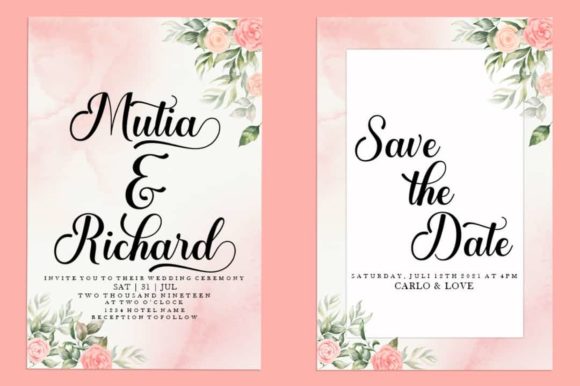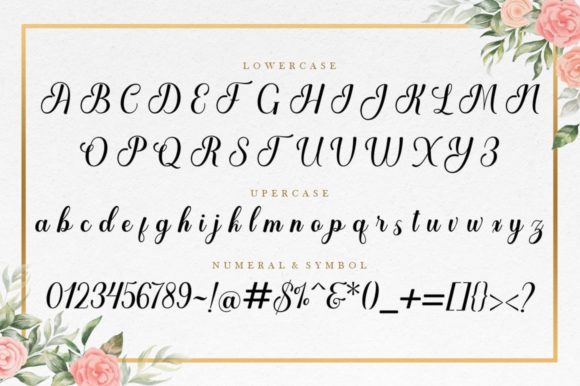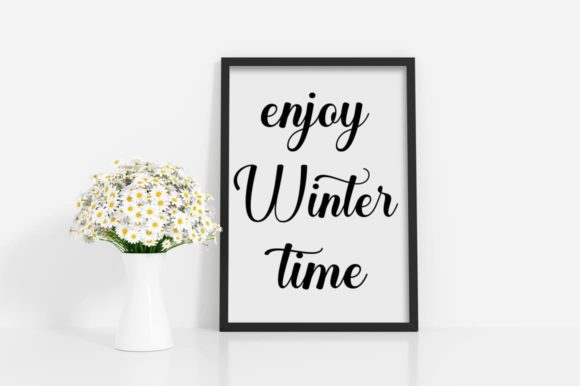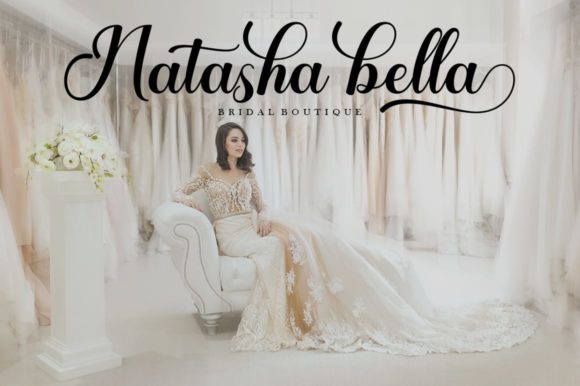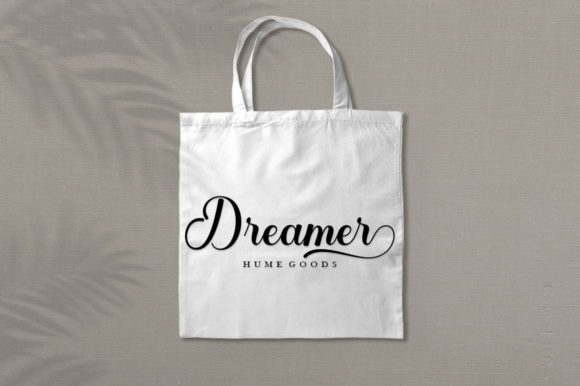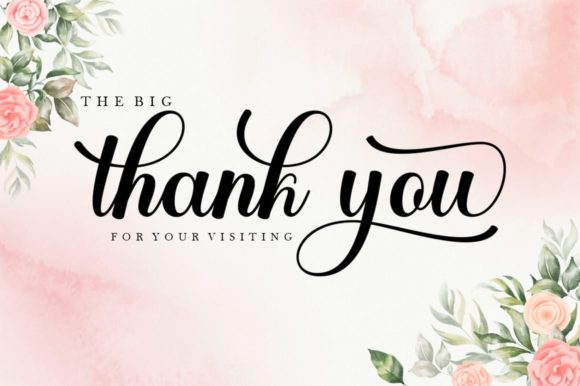
The Delania Font: A Sweet and Simple Script to Elevate Your Designs
I’ll never forget the time I was working on a wedding invitation project, and my client asked me to create a custom design that would make their special day even more unforgettable. The catch? They wanted a font that was elegant, yet playful; sophisticated, yet approachable. I scoured the internet, tried out countless fonts, but nothing seemed quite right. That was until I stumbled upon the Delania font. ✨
Delania is a sweet and simple script font with elegant swashes that instantly added a touch of magic to my design. It was love at first sight! The fluid lines, the beautiful connections, and the gorgeous swashes all came together to create a truly stunning piece. In this article, I’ll share my experience with Delania, its features, and how to make the most of this beautiful font in your designs.
An Honest Review of Delania Font
What I Love About Delania Font
- ✨ Elegant swashes that add a touch of sophistication to any design
- ✅ Beautifully crafted letters with a smooth, flowing connection
- ✅ Highly versatile and suitable for a wide range of design projects
- ✅ Easy to read and understand, even in smaller sizes
While Delania is an amazing font, there are a few things to keep in mind: 🤔
- ⚠️ Some swashes may not work well in smaller font sizes, so be sure to test them out
- ⚠️ Limited availability of certain characters, such as ligatures or alternative letters
The Story Behind Delania Font
Delania font was designed with love and care by a talented type designer who wanted to create a beautiful, elegant script font that would inspire creativity. The designer drew inspiration from classic calligraphy and modern typography to craft a unique and versatile font that’s perfect for a wide range of design projects.